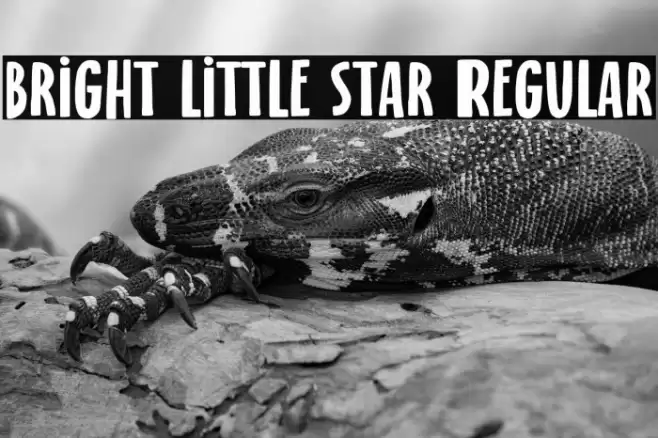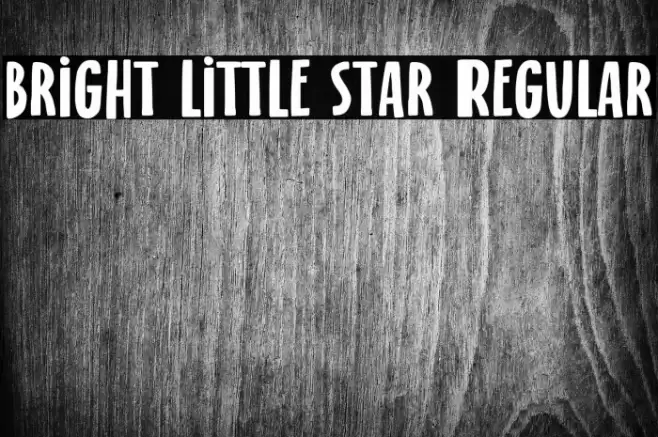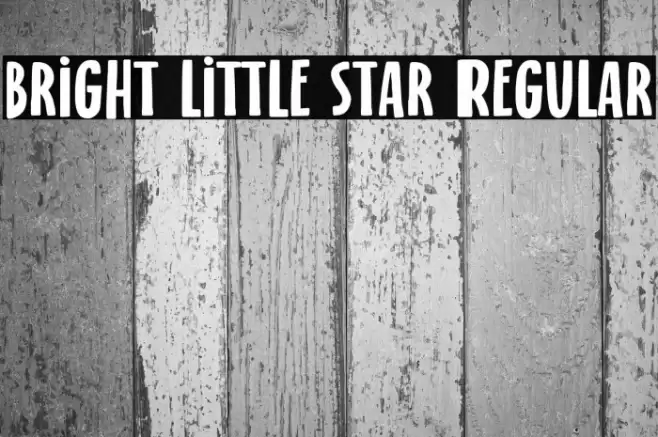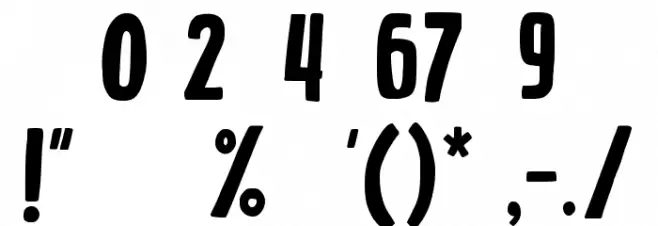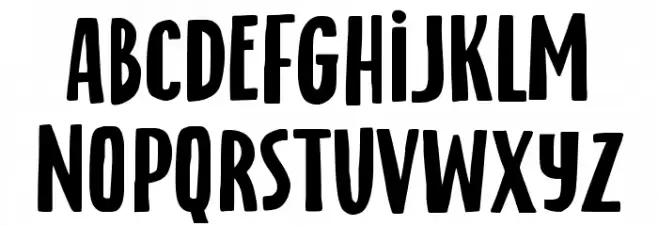
bright little star Regular Font
bright little star Regular Description
This font features a playful and bold design with a hand-drawn aesthetic. The characters are slightly irregular, giving it a whimsical and informal feel. The uppercase letters are robust and eye-catching, while the lowercase letters maintain a consistent style that complements the uppercase. The numbers are distinct and easy to read, with a similar boldness to the letters. Special characters are included, adding versatility to the font. The overall appearance is friendly and approachable, making it suitable for creative and fun projects.
A playful, bold, hand-drawn font with a whimsical and informal style from Uncategorized fonts.
- Proposed Projects: Ideal for children's books, playful branding, posters, and creative invitations.